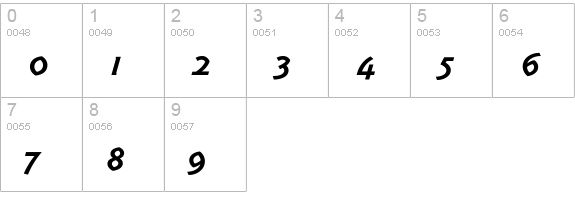
TriplexItalicBoldOldstyle Bold Italic is a strong, high-contrast, italic variant in the TriplexItalicBoldOldstyle typeface family \xE2\x80\x94 well suited to headlines, attention-grabbing titles, and strong calls-to-action.
The TriplexItalicBoldOldstyle Bold Italic font is a stunning display of elegance and sophistication. Its unique combination of boldness and italics creates a visually striking effect that is sure to captivate any audience. This font embodies a perfect balance between traditional old-style typography and contemporary design elements. With its intricate curves and intricate detailing, the TriplexItalicBoldOldstyle Bold Italic font exudes a sense of timeless beauty. Each letter is meticulously crafted with precision, resulting in a harmonious blend of classic charm and modern flair. It is a font that effortlessly stands out and commands attention. The TriplexItalicBoldOldstyle Bold Italic font is not only visually appealing but also highly versatile. It is perfect for a wide range of design projects, whether it be print materials, branding, advertising, or digital media. Its bold and italicized form adds depth and dimension to any text, making it ideal for headlines, titles, and emphasis. One of the best aspects of the TriplexItalicBoldOldstyle Bold Italic font is that it is freely available to download at FontsMarket.com. This means that designers and enthusiasts alike can access this remarkable font without any cost, allowing for unlimited creativity and exploration. Whether you are a professional designer or a casual enthusiast, this font is a must-have in your collection. Experience the beauty and versatility of the TriplexItalicBoldOldstyle Bold Italic font today. Download it freely at FontsMarket.com and unlock a world of endless design possibilities. Let this font elevate your projects to new heights and leave a lasting impression on your audience.